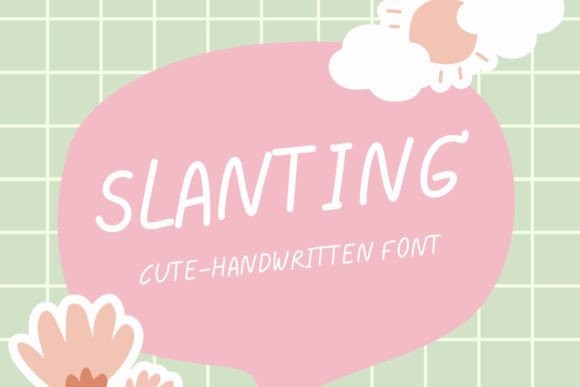
Welcome to the enchanting world of Slanting Font, a script font family that will awaken your creative spirit and transform your designs into captivating visual masterpieces. Created by the talented vocrub, Slanting is more than just a font; it's an expression of individuality, a burst of playful energy that adds a touch of whimsy to your creations.
With its uneven and slanted letterforms, Slanting possesses a unique charm that sets it apart from ordinary fonts. It's a dance of characters, each one leaning and swaying, creating a sense of movement and dynamism that draws the eye and captivates the heart.
Slanting is the perfect font for adding a touch of whimsy to greeting cards, invitations, and branding materials. Its playful nature makes it ideal for capturing the magic of special occasions, while its creative energy infuses life into logos and branding, leaving a lasting impression on your audience.
Let Slanting be your muse, guiding you to create designs that stand out from the crowd. Its delightful quirkiness will add a touch of enchantment to your projects, making them truly unforgettable. Embrace the playful spirit of Slanting Font and let your creativity soar!
But Slanting is not just for playful designs. Its versatility extends to a wide range of projects, from elegant wedding invitations to eye-catching social media posts. Its ability to add a touch of personality and charm makes it a favorite among designers who seek to create truly unique and memorable designs.
With Slanting Font, you have the power to transform ordinary words into works of art. Its enchanting letterforms will add a touch of magic to your designs, leaving your audience spellbound. So, dive into the world of Slanting Font and let your creativity shine like never before!